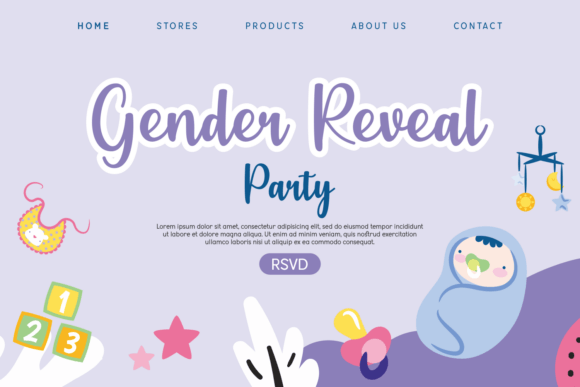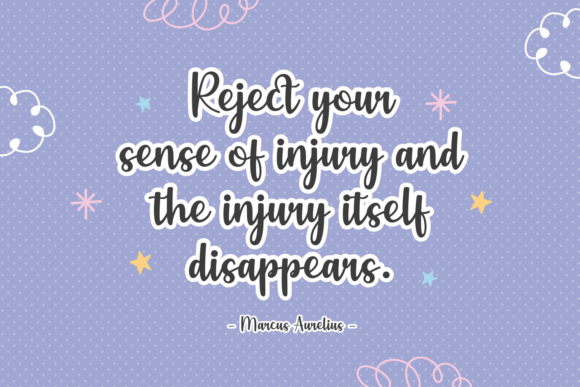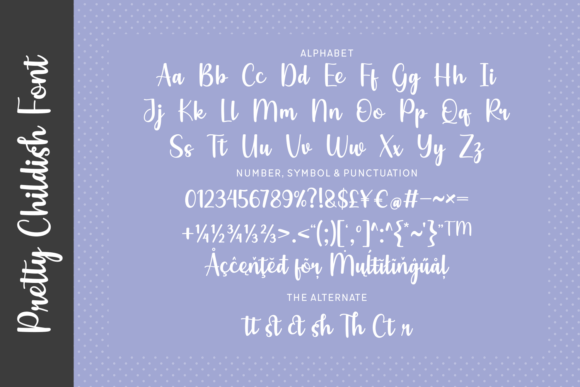
Introduction to Pretty Childish Font
Pretty Childish is a cute and bold script font that has a playful and cheerful look.
Its rounded letters and fun curves make it perfect for adding a friendly touch to invitations, greeting cards, or any creative project This font captures a lighthearted spirit, making your text stand out in a joyful way.